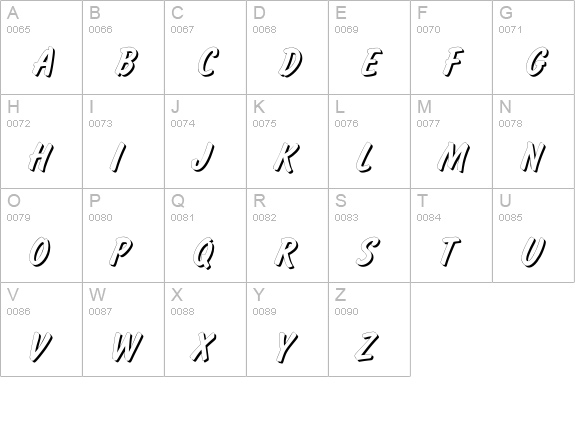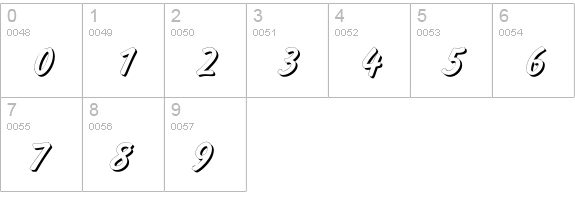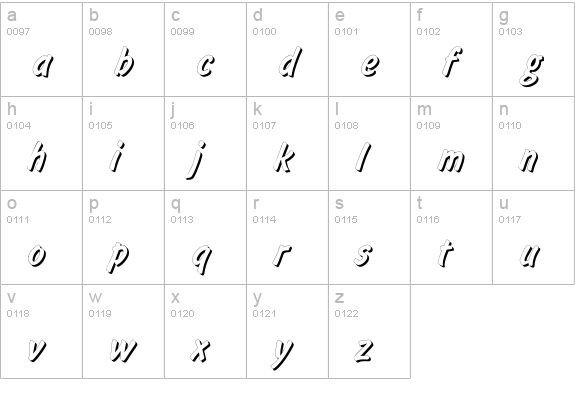
Inform Bold Shadow Cyrillic is a strong, high-contrast variant in the Inform typeface family \xE2\x80\x94 well suited to headlines, attention-grabbing titles, and strong calls-to-action.
Introducing Inform Bold Shadow Cyrillic font, a striking and eye-catching typeface that is sure to make a bold statement in any design project. With its sharp edges and intricate details, this font commands attention and adds a touch of sophistication to any text. Designed with the Cyrillic alphabet in mind, Inform Bold Shadow Cyrillic font is perfect for projects that require a touch of Russian elegance or a nod to the Slavic culture. Whether you're designing a logo, creating a poster, or working on a website, this font will bring a unique and artistic flair to your designs. What makes Inform Bold Shadow Cyrillic font even more appealing is that it is available for free! Yes, you read that right - this stunning font can be downloaded and used freely from FontsMarket.com. With just a few clicks, you can have access to this remarkable typeface and unleash your creativity without any restrictions. The versatility of Inform Bold Shadow Cyrillic font is evident in its ability to adapt to various design styles. Its bold and robust appearance makes it ideal for headlines and titles, while its intricate details make it suitable for body text, creating a harmonious balance in your designs. Whether you're a professional designer or just starting out, Inform Bold Shadow Cyrillic font is a must-have in your font collection. Its unique blend of elegance and boldness sets it apart from other Cyrillic fonts, making it a go-to choice for anyone looking to add a touch of sophistication to their projects. So why wait? Download Inform Bold Shadow Cyrillic font for free at FontsMarket.com and start creating stunning designs that will leave a lasting impression. With its captivating presence and freely available nature, this font is sure to become a favorite among designers and enthusiasts alike.